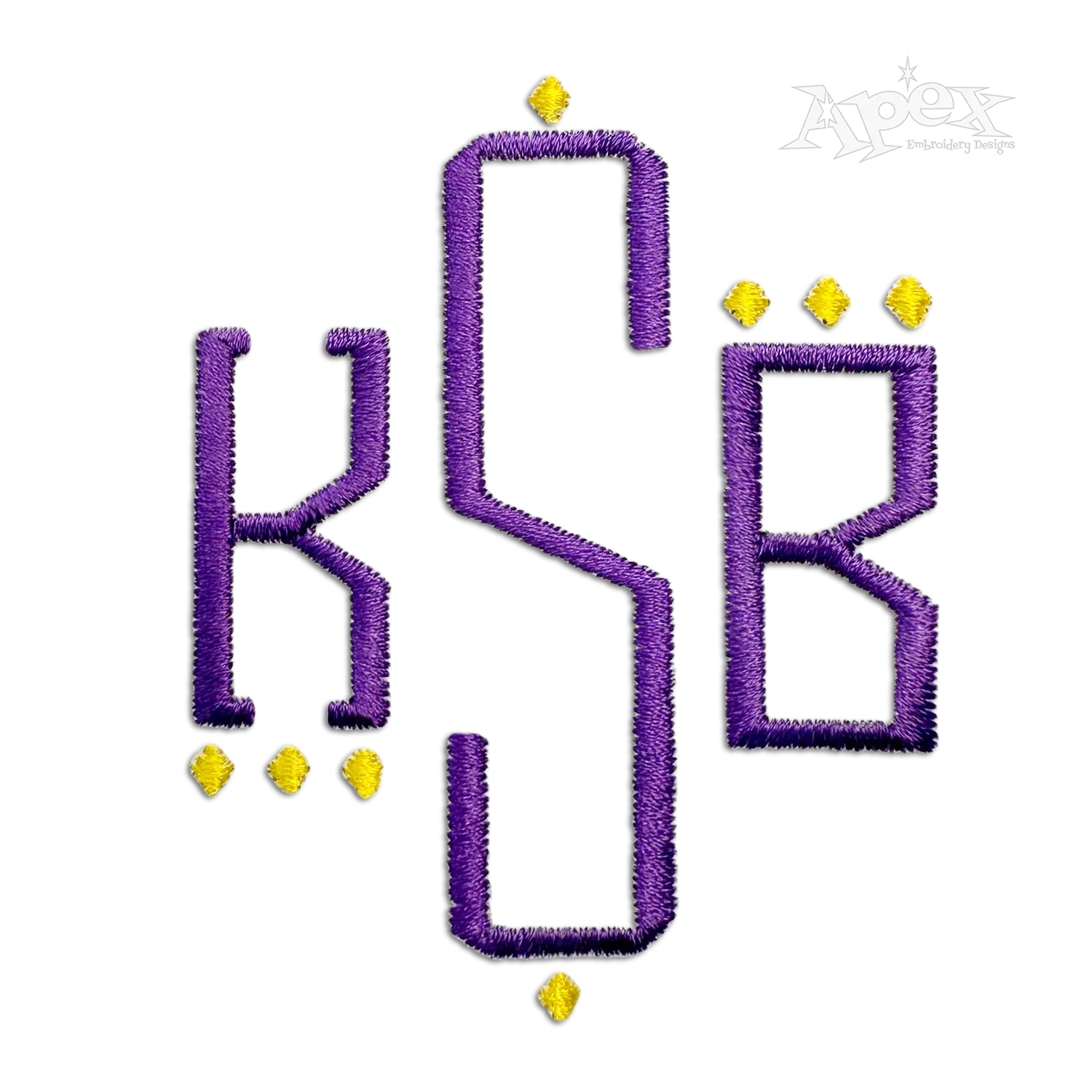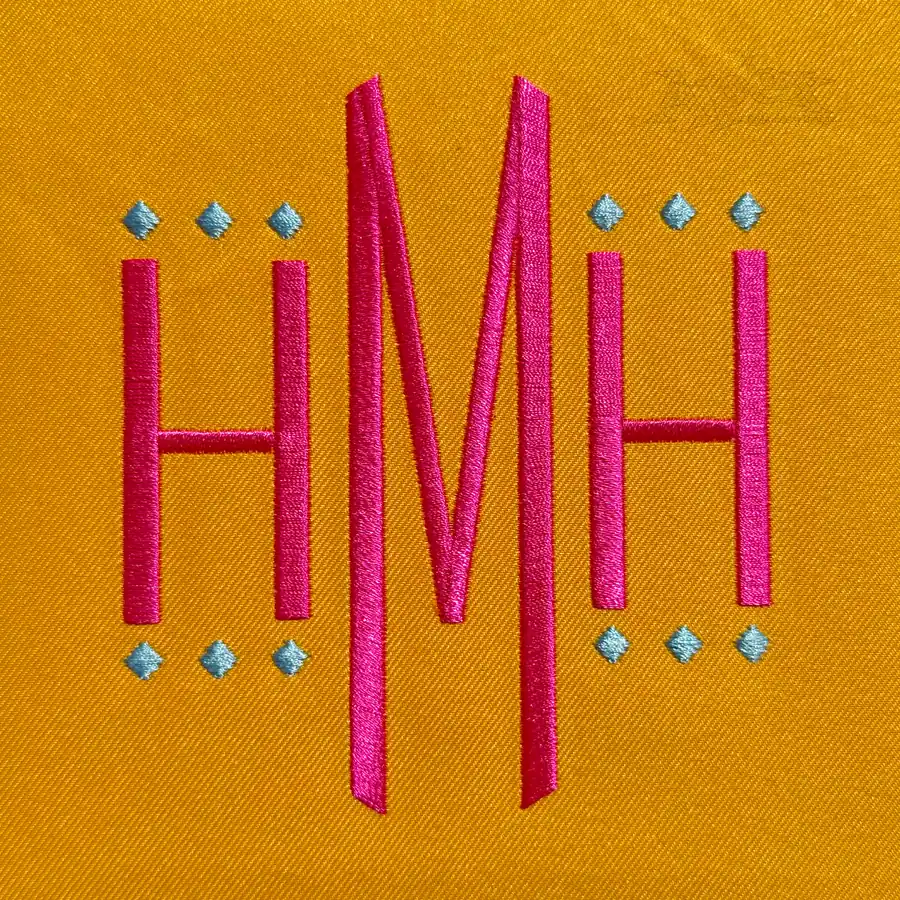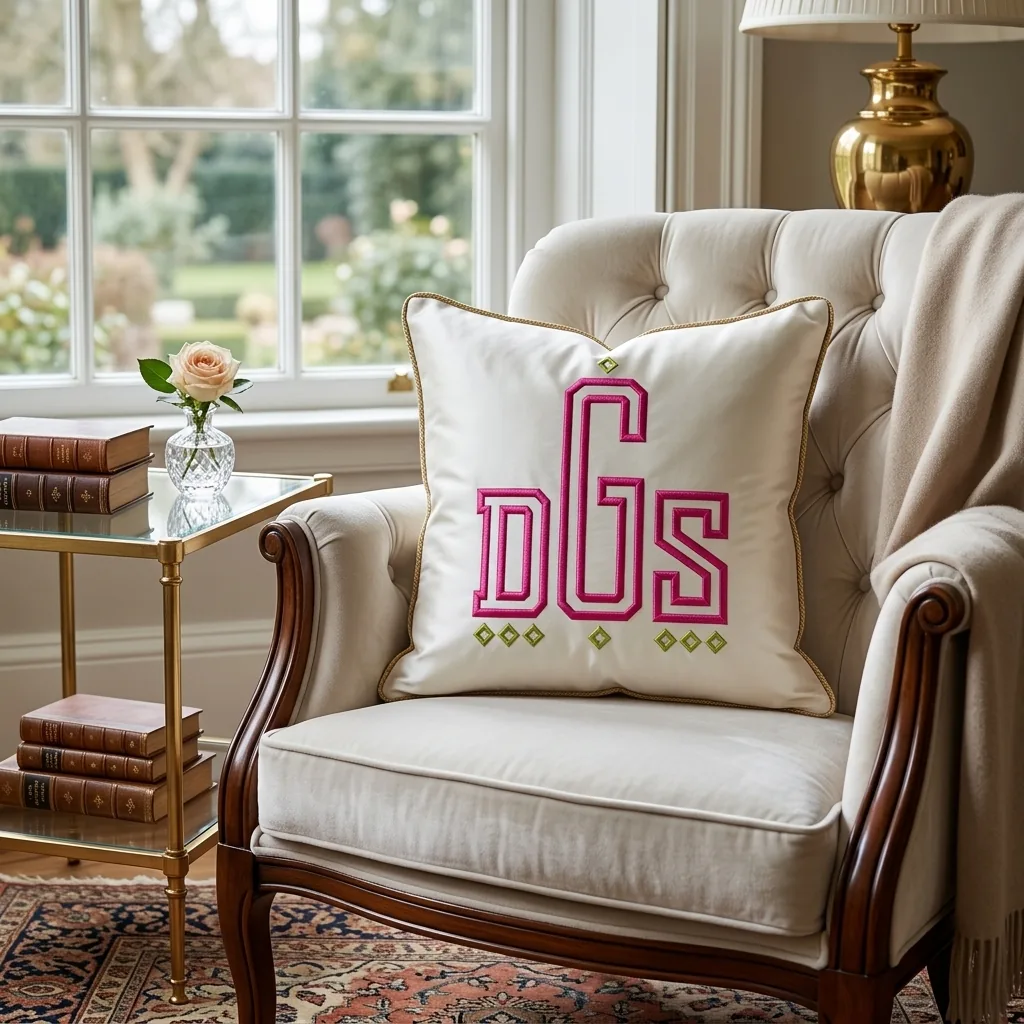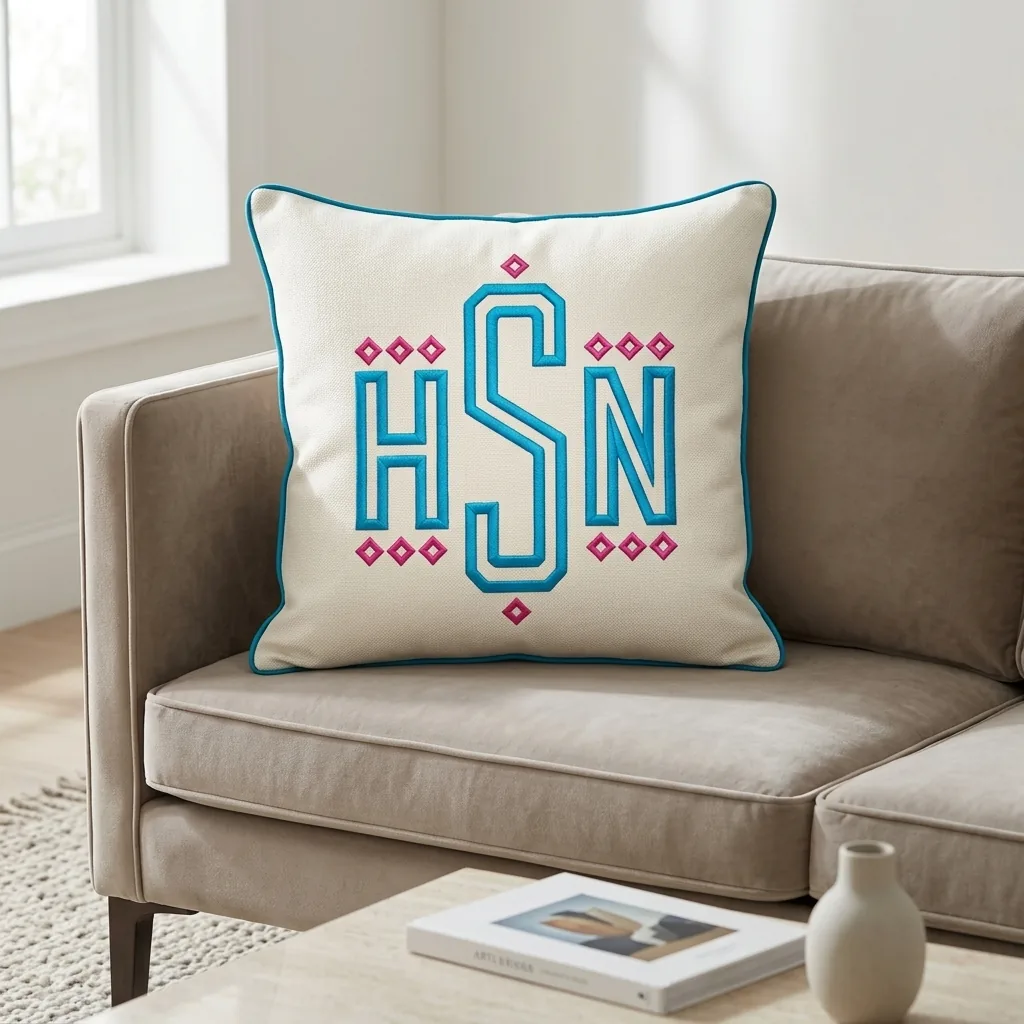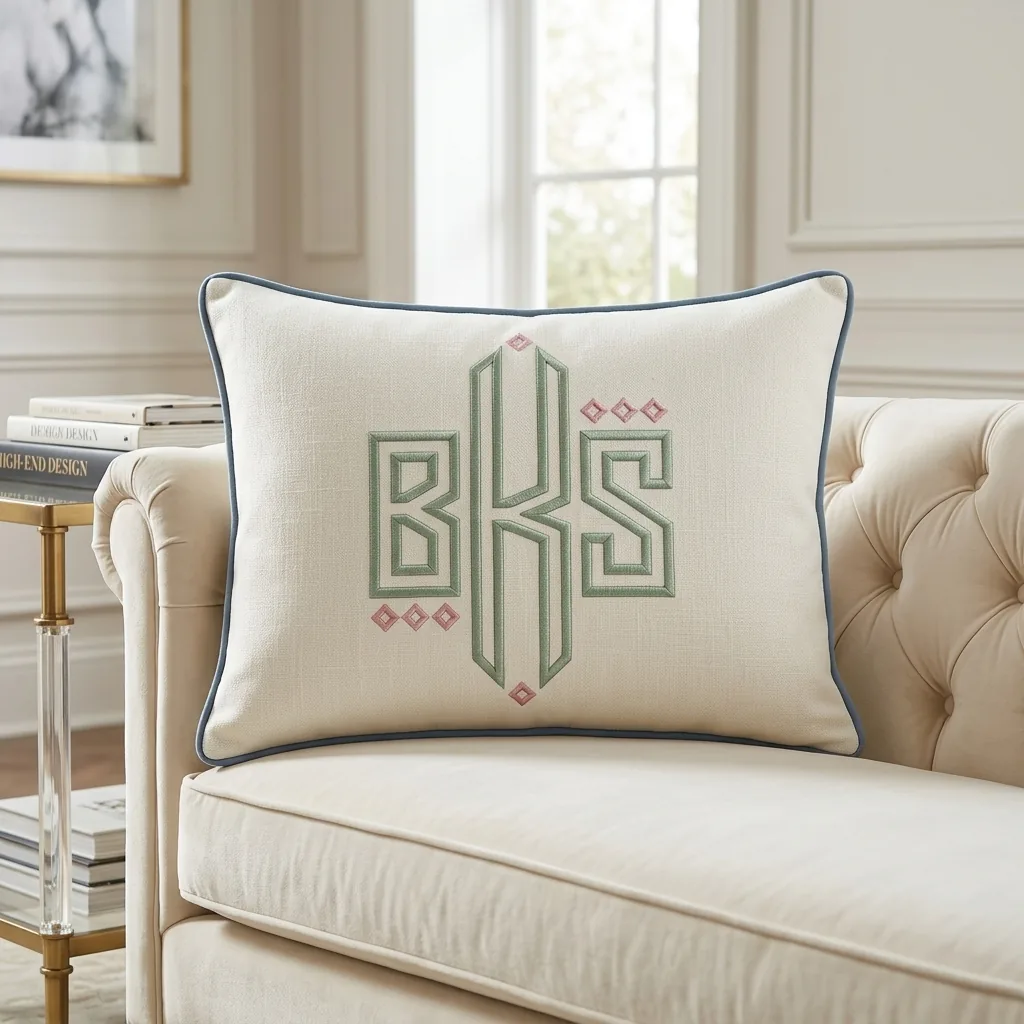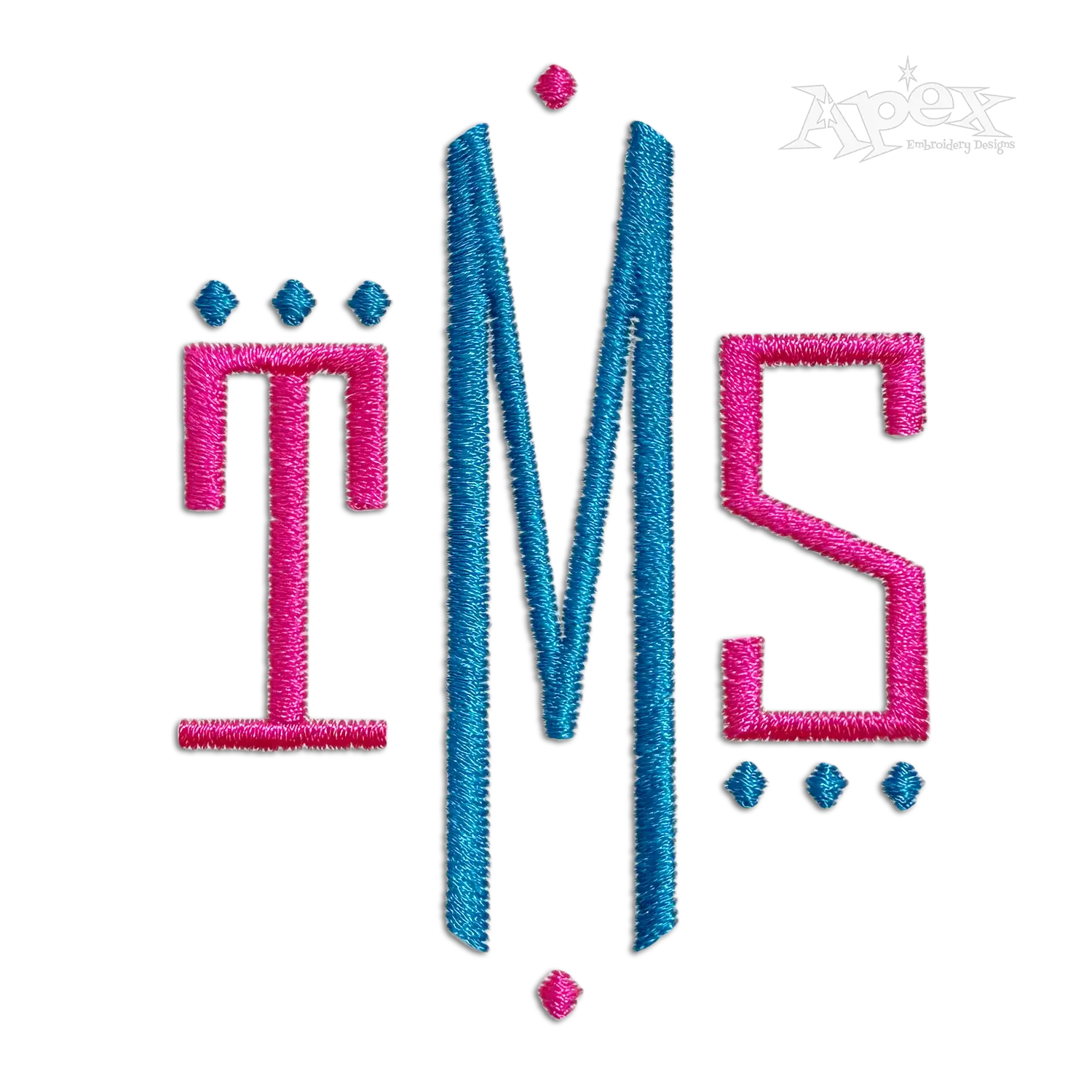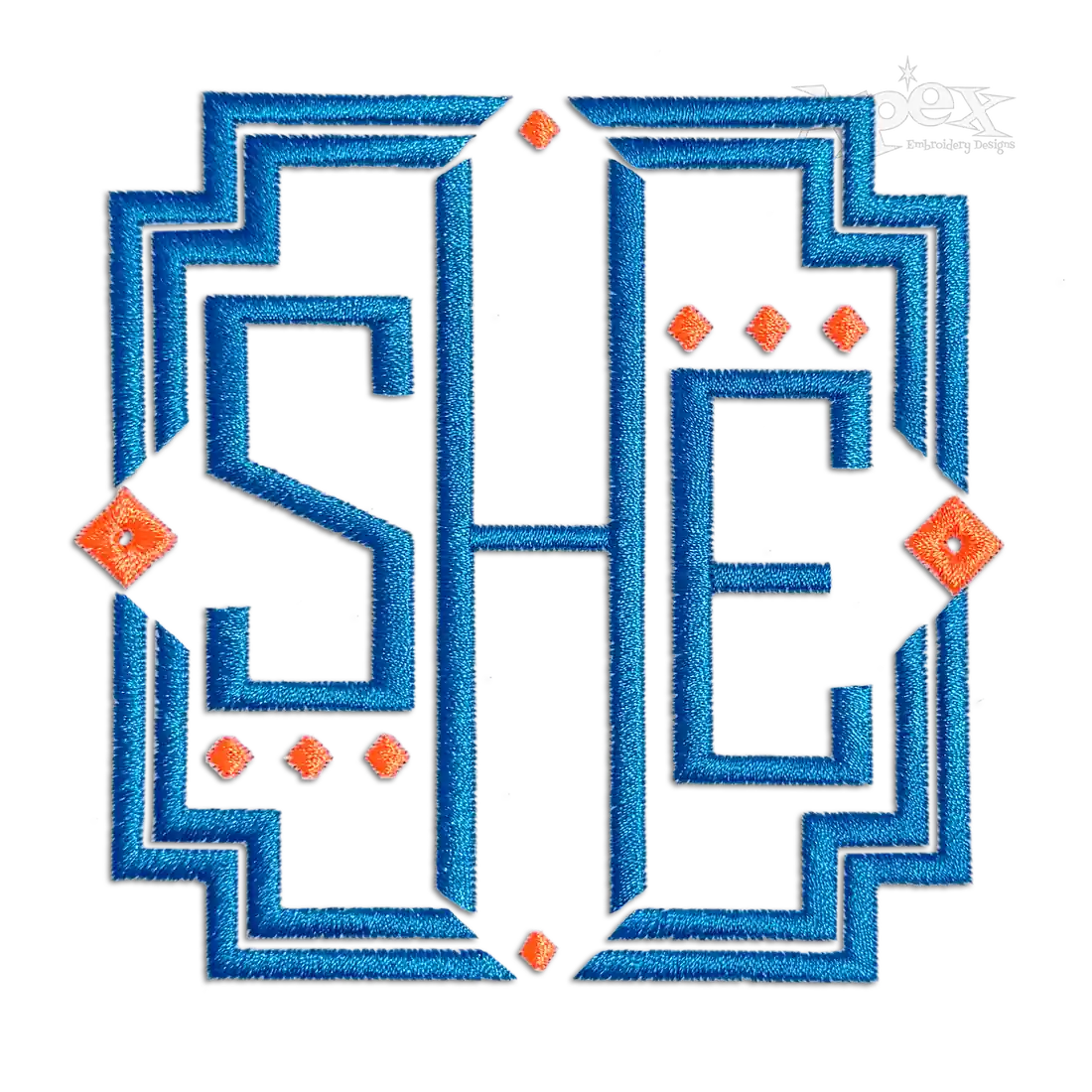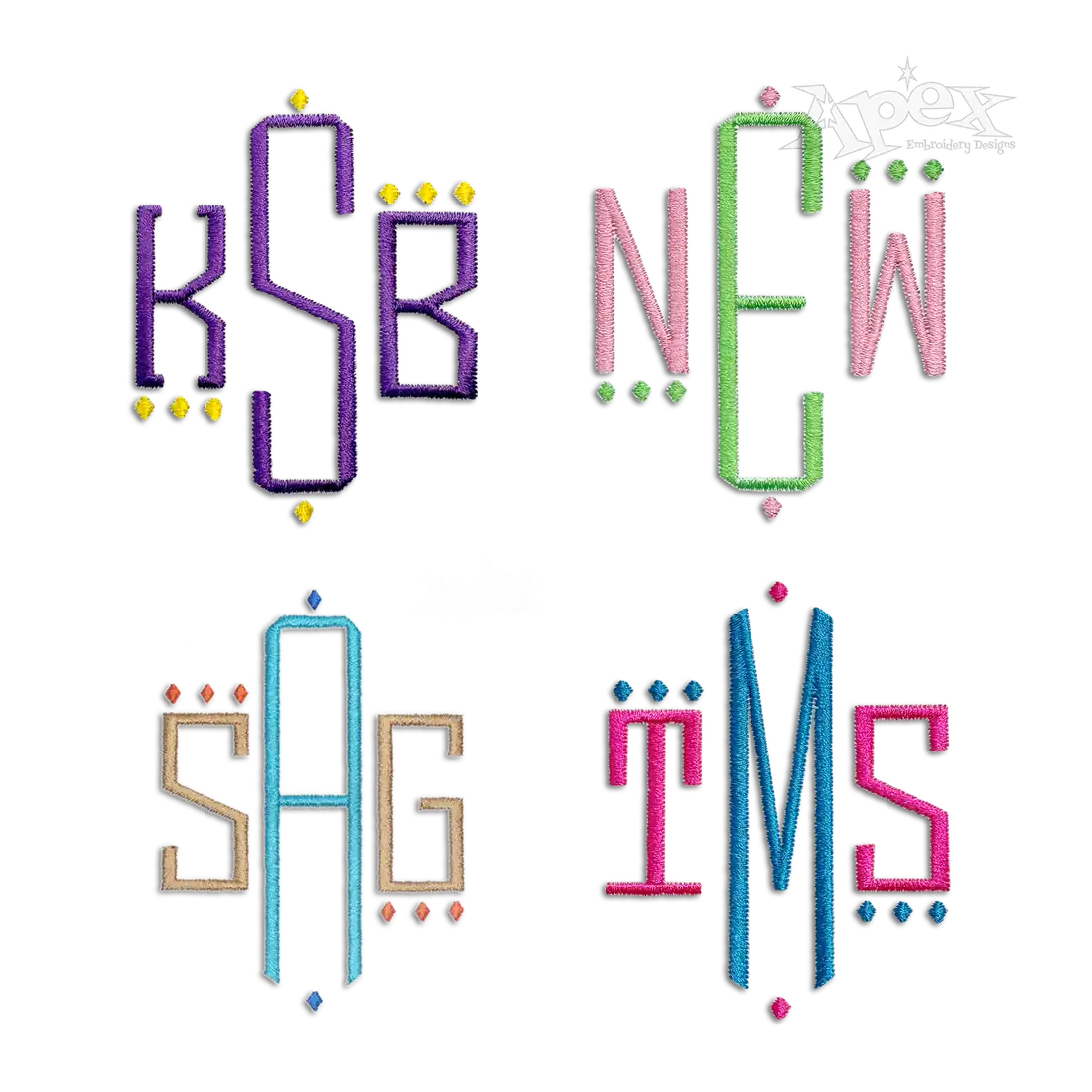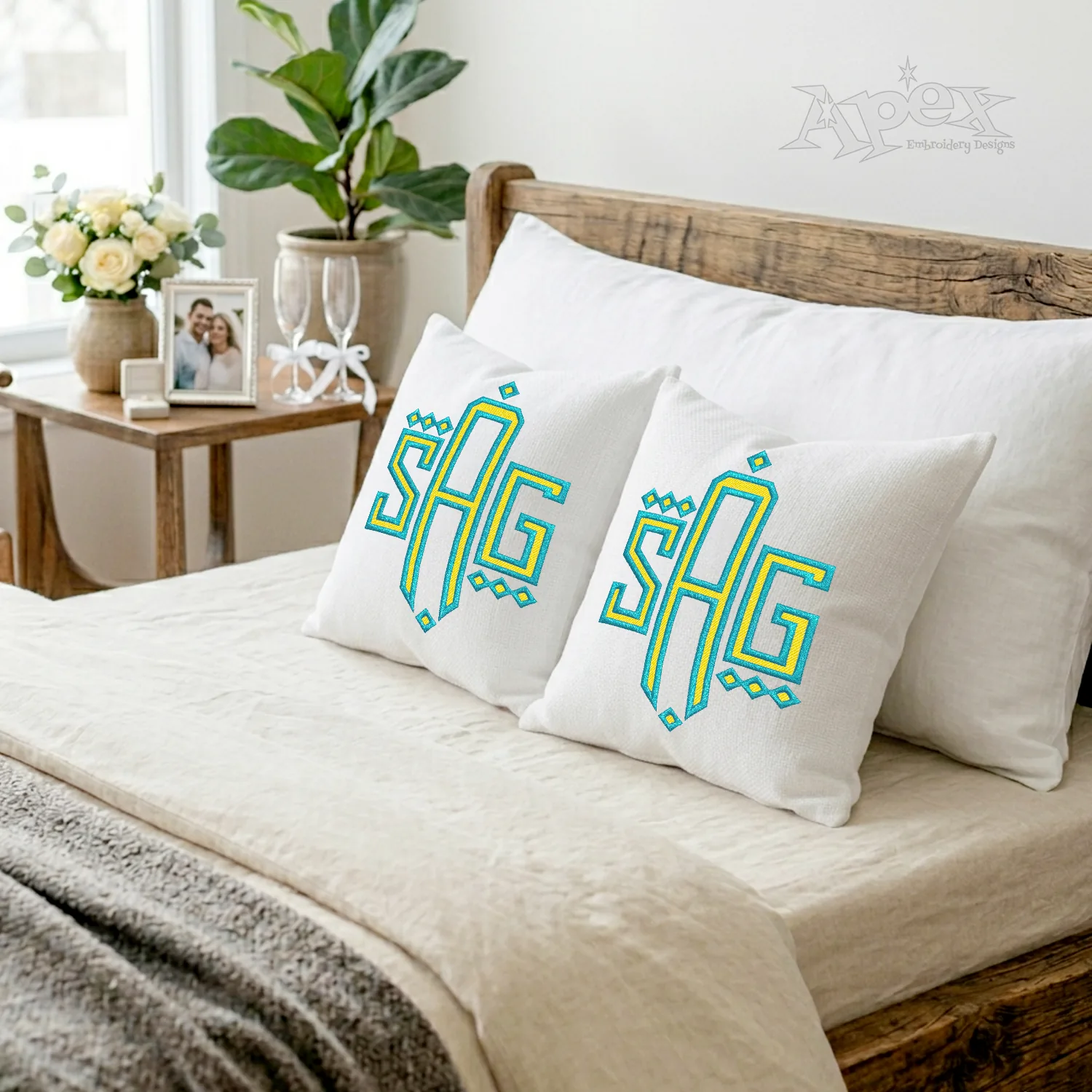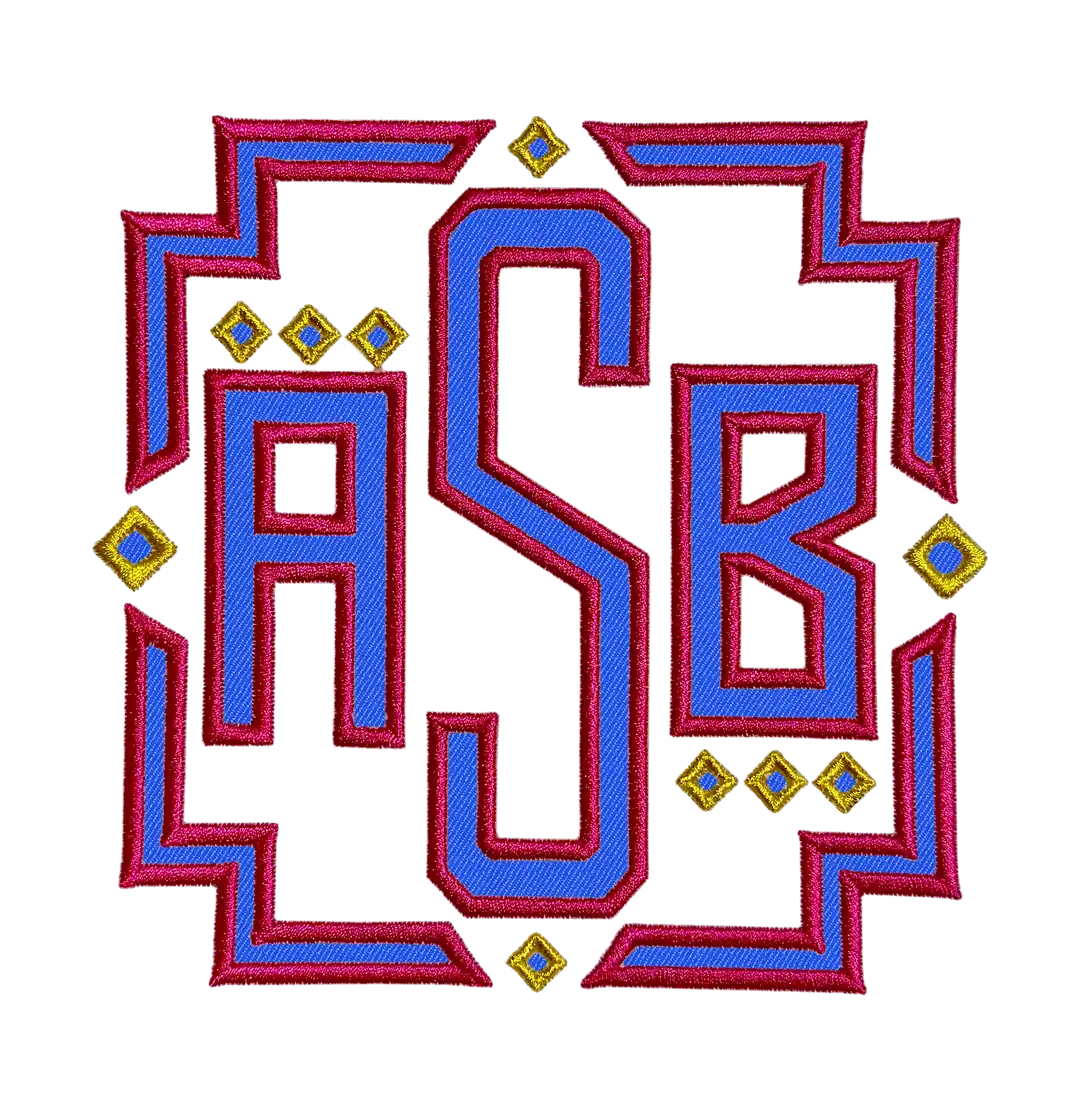
Diamond Dots Square Monogram Embroidery Font
Retro Chic Square with Diamond Polka Dots Monogram 3-Letter Initial Machine Embroidery Fonts. Clean Modern Thin Style Custom Lettering Alphabet Name logo.
- Diamond Square Dots Monogram Font
- Perfect for 3-Letter Monograms
- Custom Home D?cor Projects